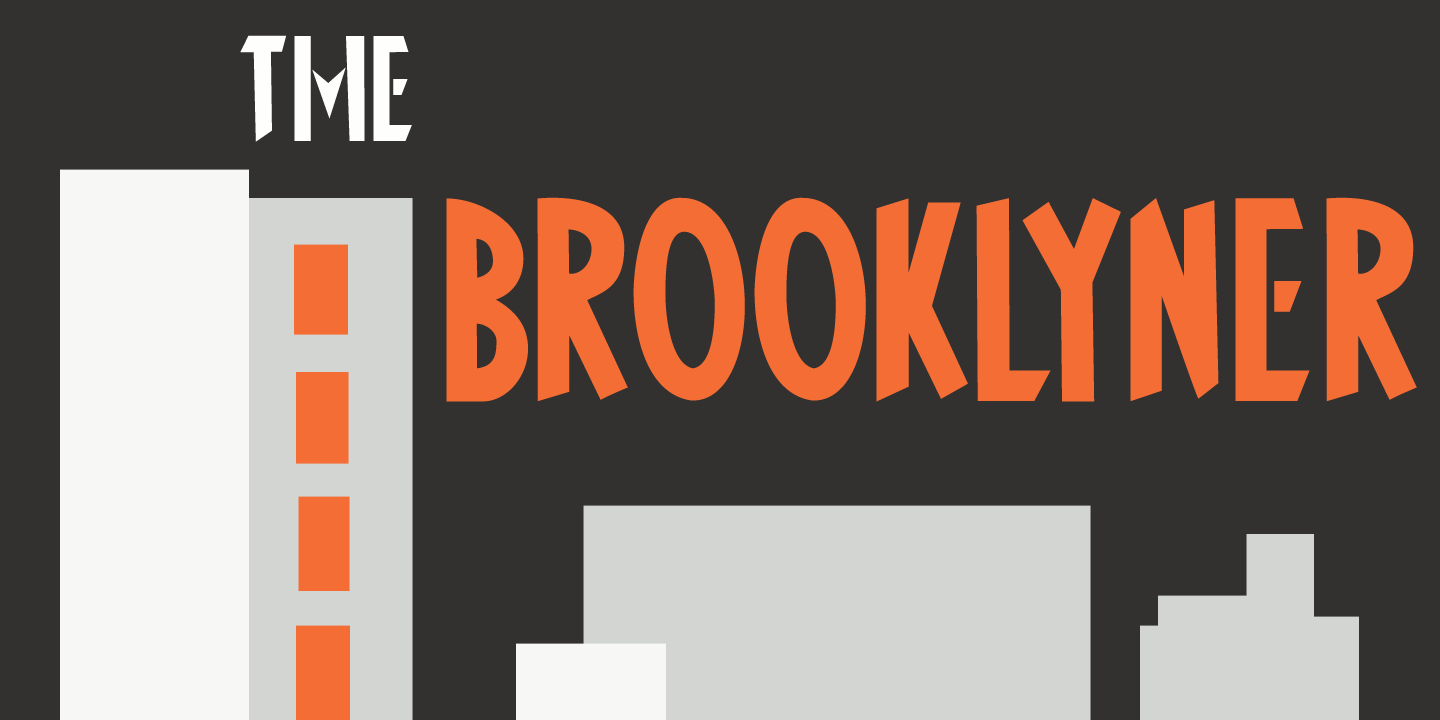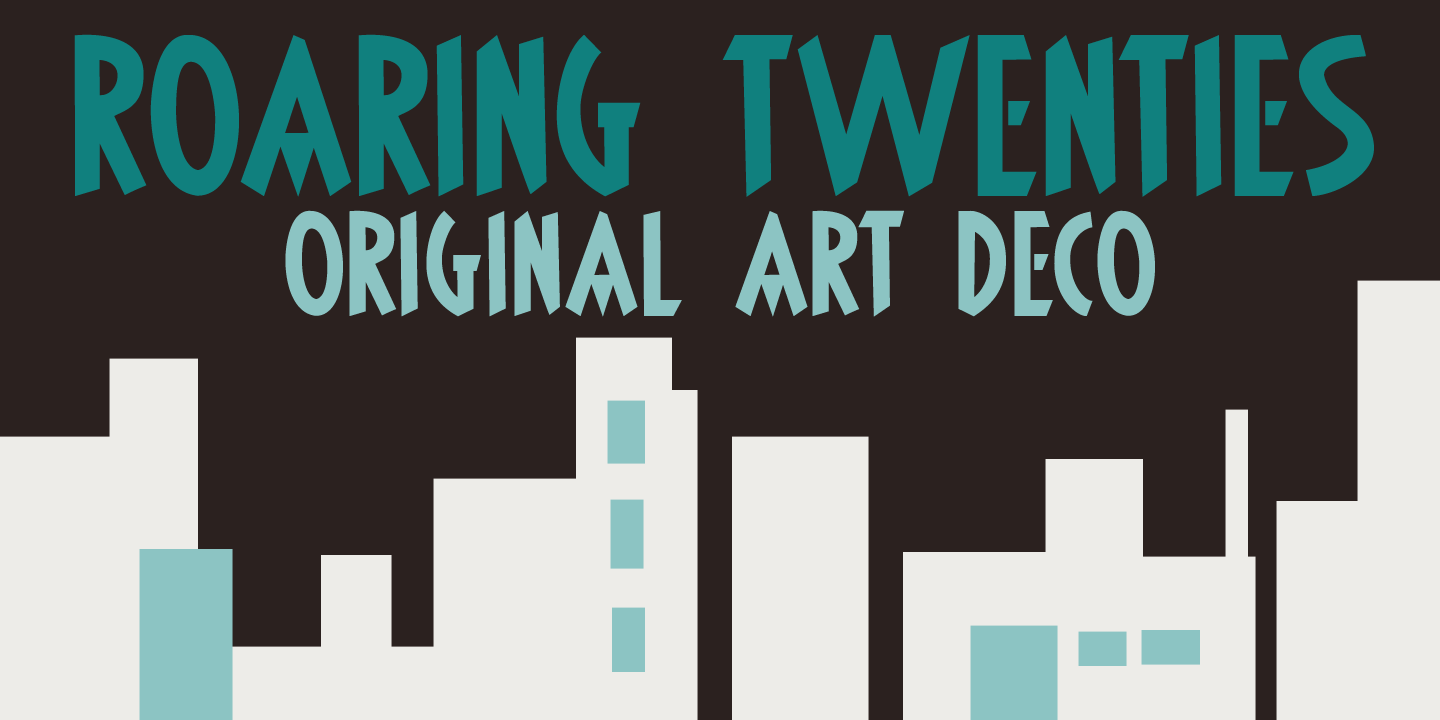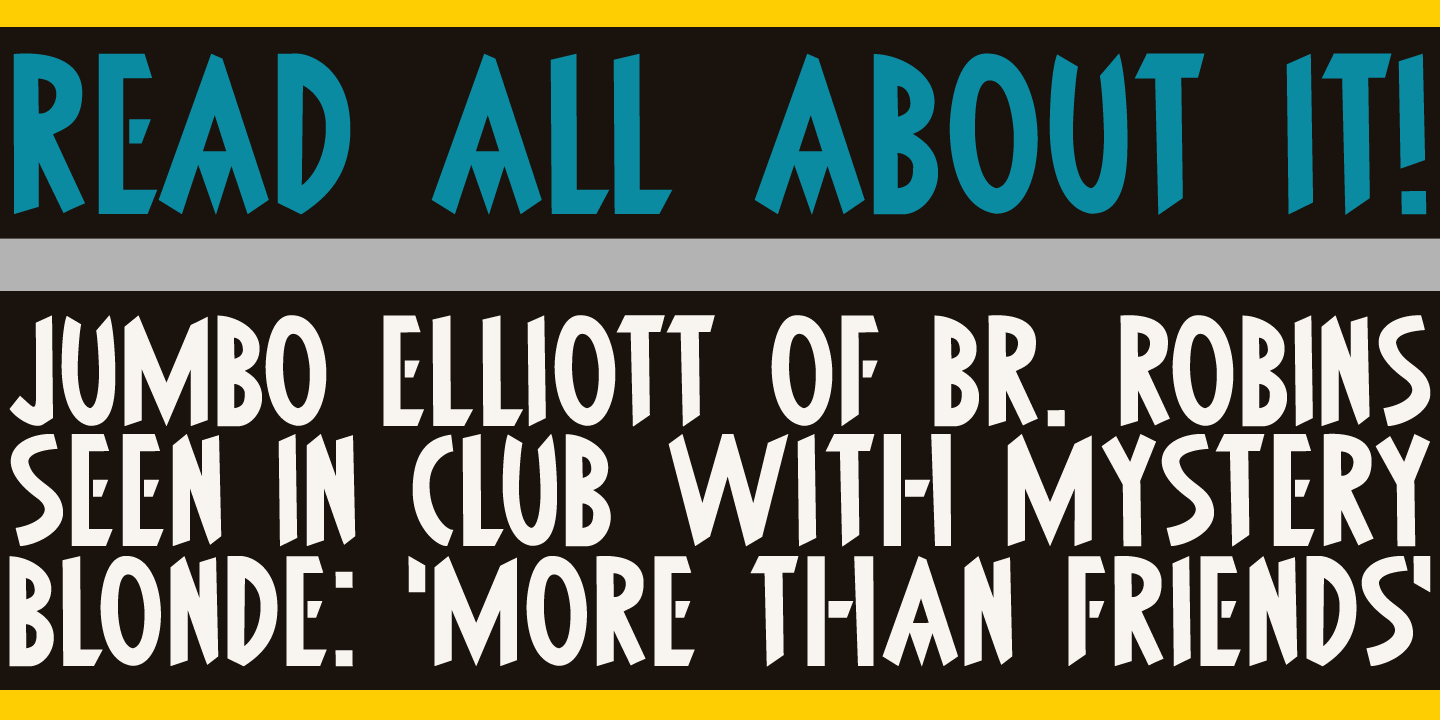
Brooklyner
Brooklyner font is based on the typeface used for The Brooklynite, a magazine which saw its heyday in the 1920's. The typeface before you is an all caps affair, making it a perfect choice for headlines, posters and ads. Since I had to work with just a handful of glyphs (11 to be precise), it took me a while to design the rest. Brooklyner font is loose, cartoonesque and very legible - and it comes with extensive language support.